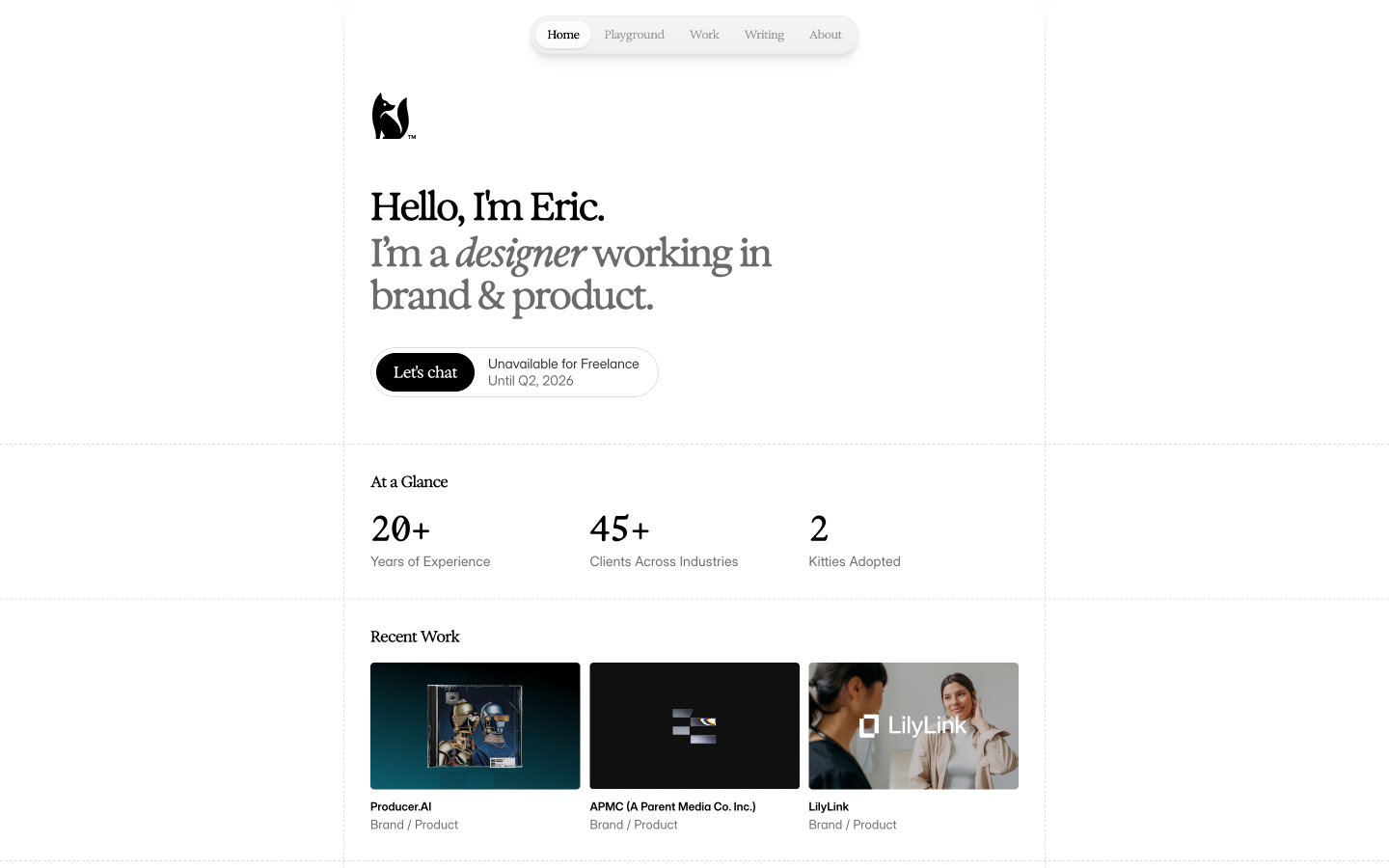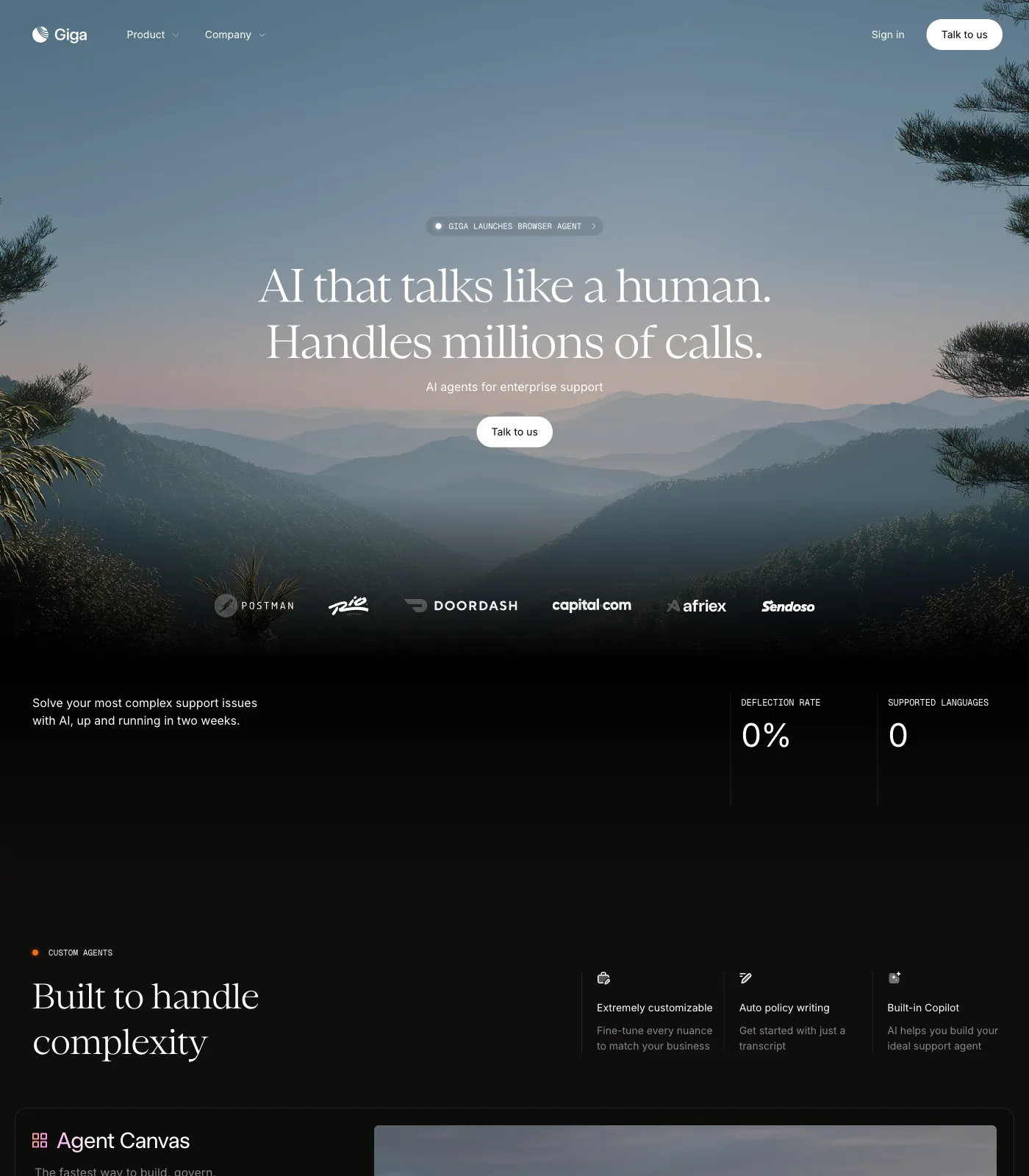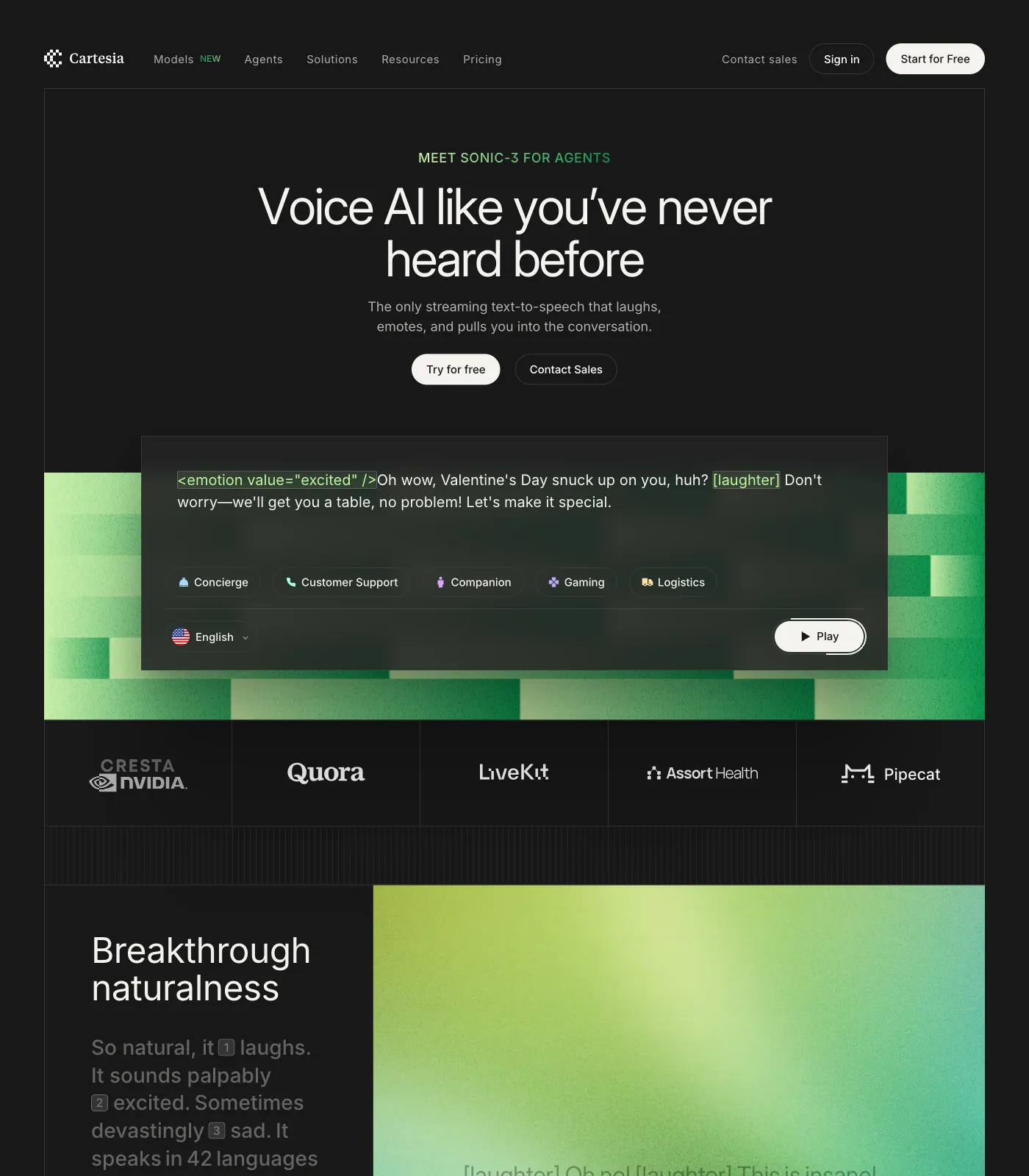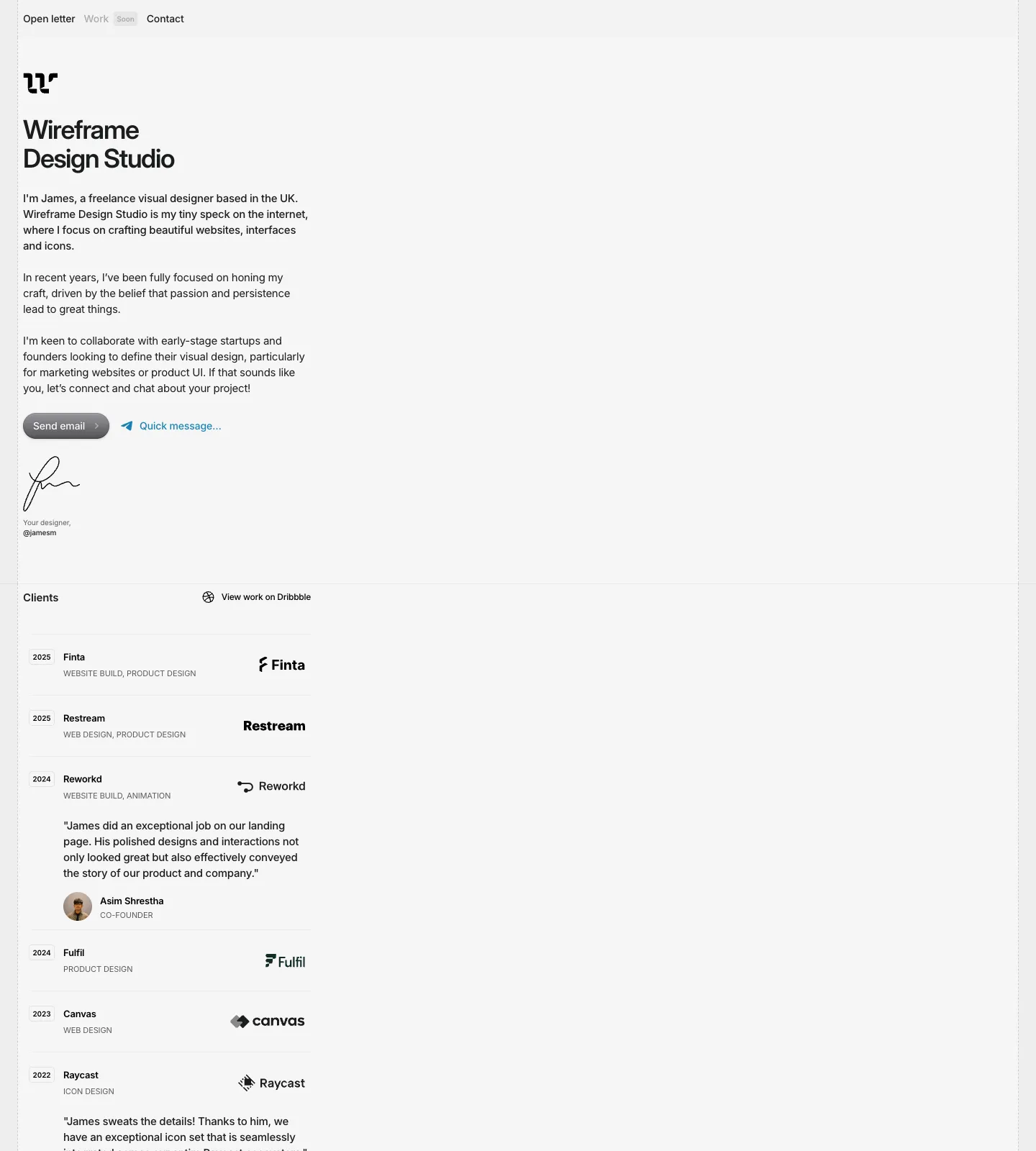
The Inter Display font on real websites
14 websites set in Inter Display, with their font pairings and stack.
Inter is a free neo-grotesque sans-serif by Rasmus Andersson. A sans-serif drawn for screens, with a tall x-height and open shapes that stay clear at small sizes. It has become the default interface face for product and SaaS sites.
14 websites in the save.design library use Inter Display. It shows up most on portfolio and AI sites. It's most often paired with Inter, Geist Mono and Pp Neue Montreal. Sites using Inter Display are most often built with React (36%).
- Style
- Neo-grotesque sans-serif
- Designer
- Rasmus Andersson
What fonts are similar to Inter?
Geist (free), Inter Tight (free), Satoshi (free) and Manrope (free) have a similar feel.
Which websites use Inter Display?
Recent examples include zrk.technology, sergeybertagnini.com, entrova.framer.website and huehaus.design. All 14 websites using Inter Display are on this page, with the rest of their fonts and their tech stack.
What fonts pair well with Inter Display?
On real sites, Inter Display is most often set alongside Inter (50% of them), Geist Mono (43% of them) and Pp Neue Montreal (14% of them).